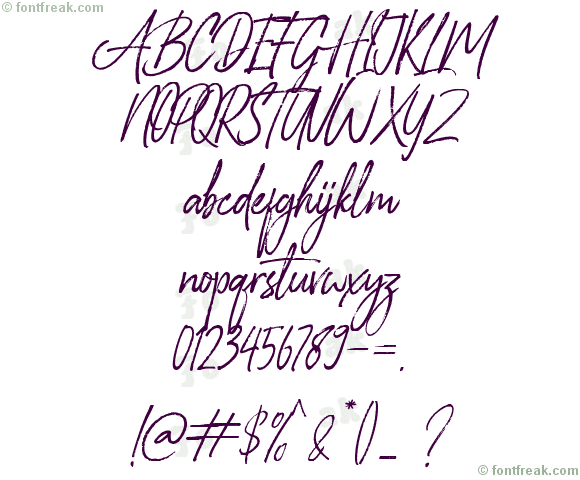
GlossyNight
About GlossyNight
GlossyNight by 50Fox Studio is an elegant script font that exudes sophistication and charm. With its fluid strokes and graceful curves, this font captures the essence of modern calligraphy, making it a perfect choice for a variety of design projects. The font features a medium stroke weight with a balanced contrast that enhances readability while adding a touch of artistic flair. The spacing between characters is thoughtfully designed, allowing for fluidity and legibility that works well in both large and small sizes. The decorative elements, such as the graceful ascenders and descenders, contribute to its overall allure.
This versatile font is ideal for a range of use cases, including wedding invitations, where its romantic style can beautifully convey heartfelt sentiments. It also shines in movie posters, lending a dramatic flair that can capture the essence of a film's theme. Additionally, GlossyNight is well-suited for restaurant menus, adding a touch of elegance that can elevate the dining experience. Content creators looking to enhance their branding materials will also find this font to be a valuable asset in creating visually appealing graphics.
What truly sets the GlossyNight font apart is its ability to convey emotion and style simultaneously. Whether you're designing for a formal occasion or a creative project, this font's unique characteristics and artistic flair will undoubtedly make a lasting impression. Don't miss out on the opportunity to enhance your designs with the GlossyNight font free download, and let your creativity shine.